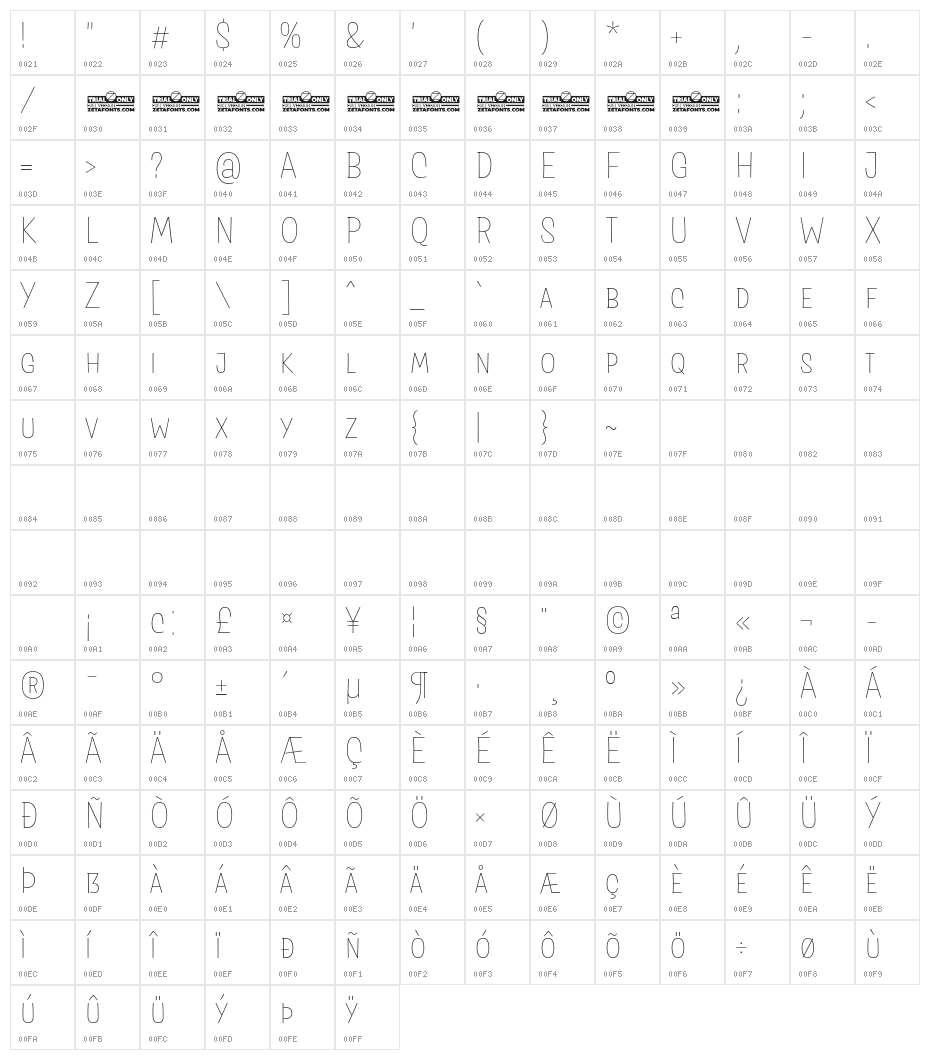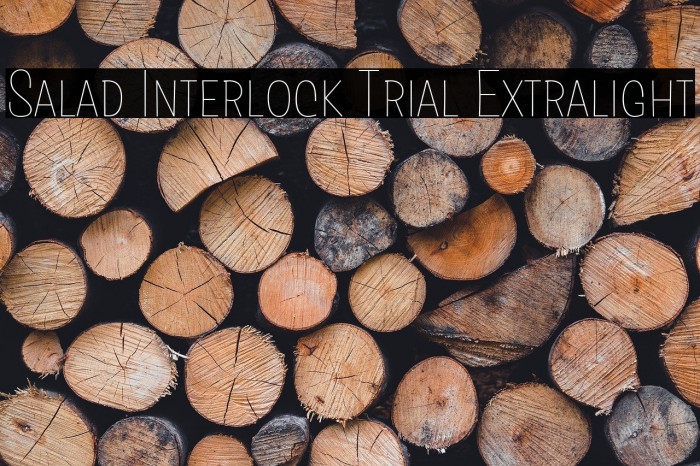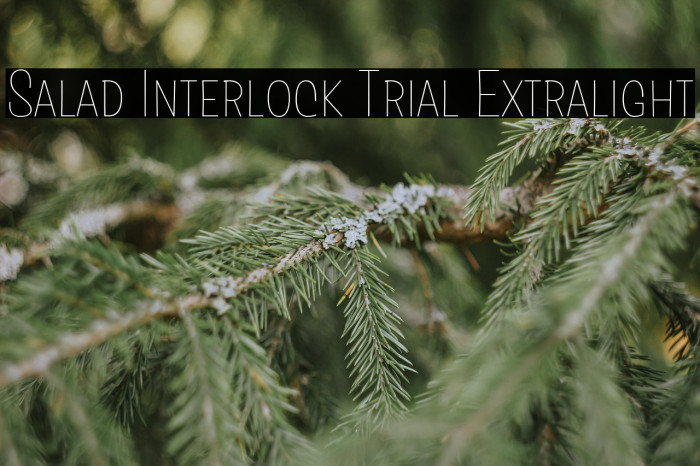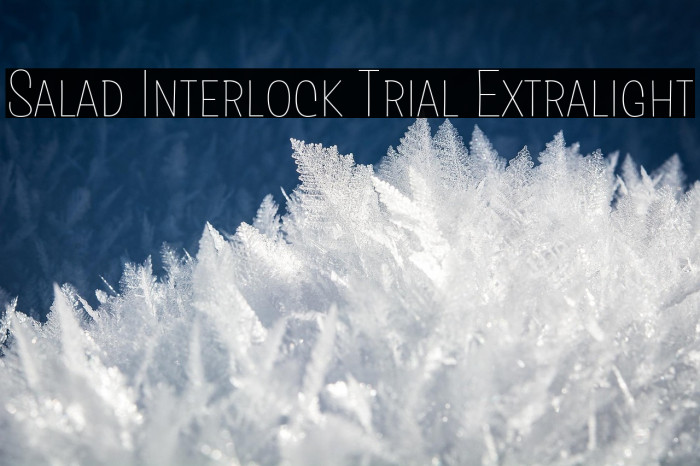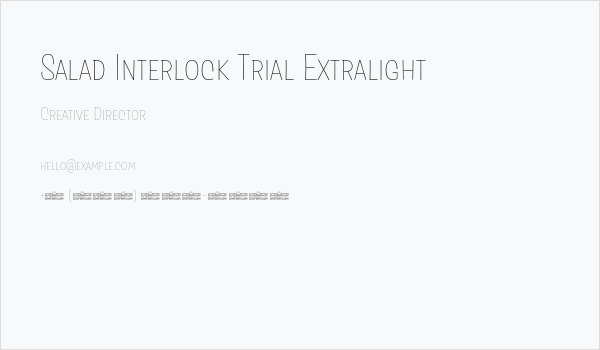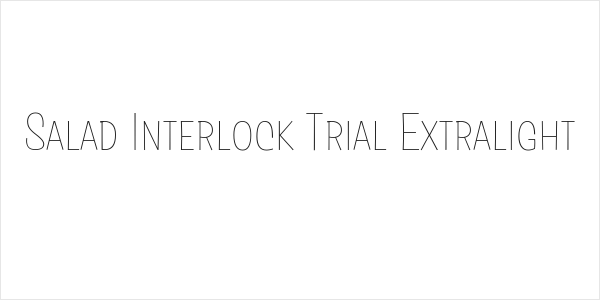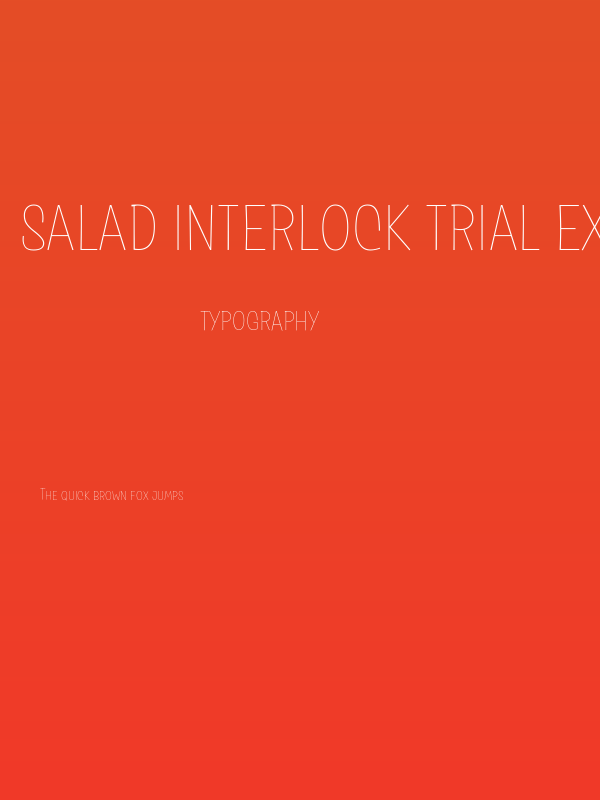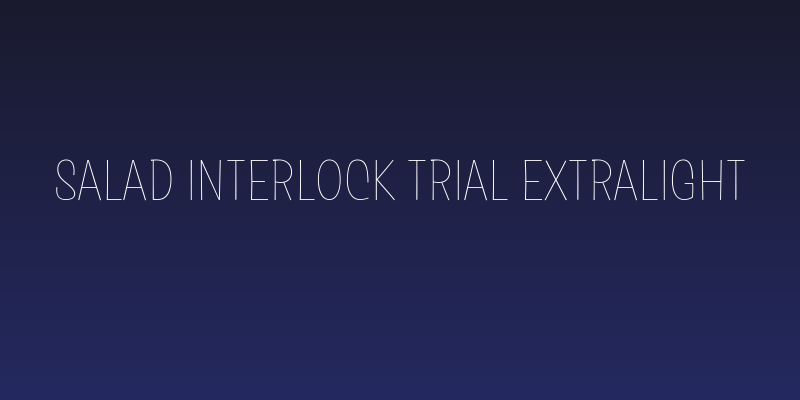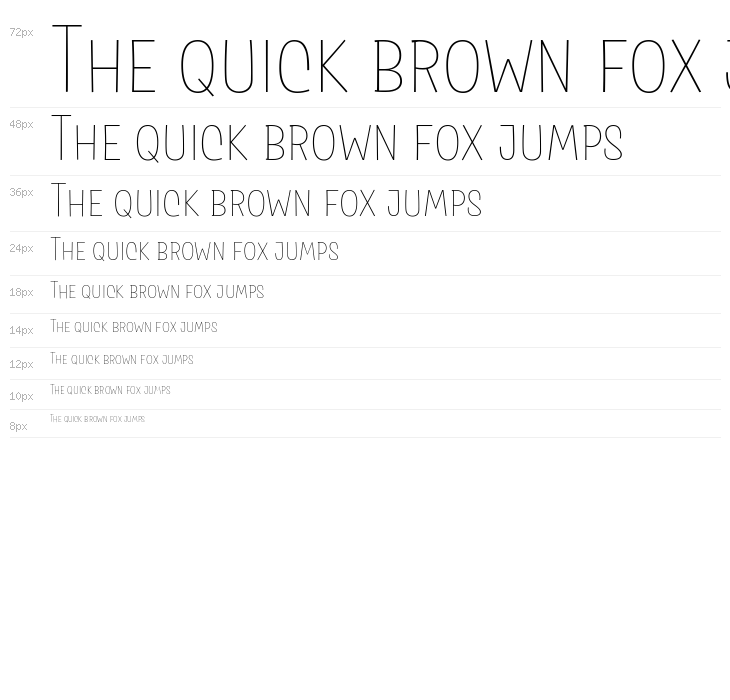
Salad Interlock Trial Extralight Font
Salad Interlock Trial Extralight Description
This font features a sleek, minimalist design with thin, elongated letterforms that convey a sense of elegance and modernity. The characters are uniformly narrow, with a consistent stroke width that gives it an extra-light appearance. The uppercase and lowercase letters maintain a clean and geometric structure, while the numerals and special characters are designed to complement the overall aesthetic. Its simplicity and clarity make it suitable for a variety of design applications where a subtle yet sophisticated look is desired.
| Proposed Projects | Ideal for modern branding projects, minimalist posters, elegant invitations, and sleek web design. |